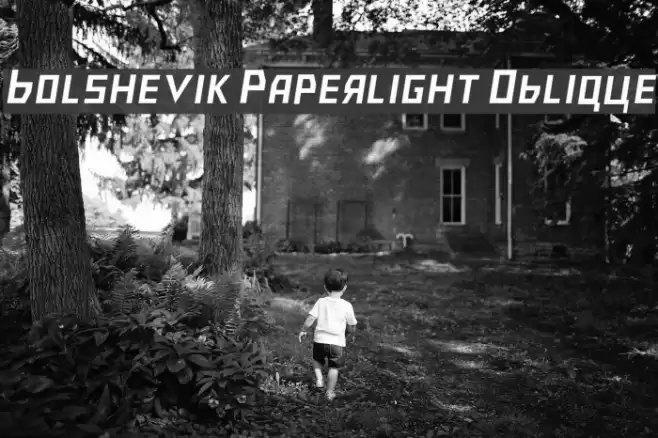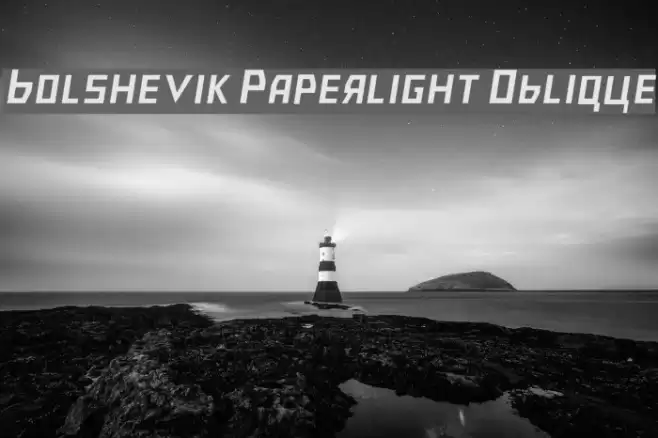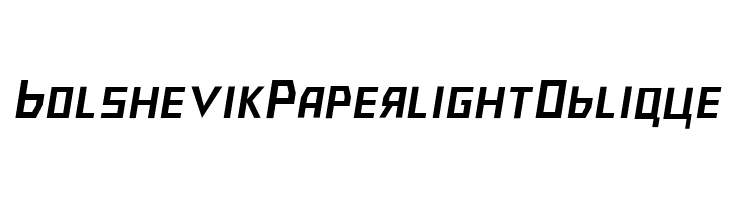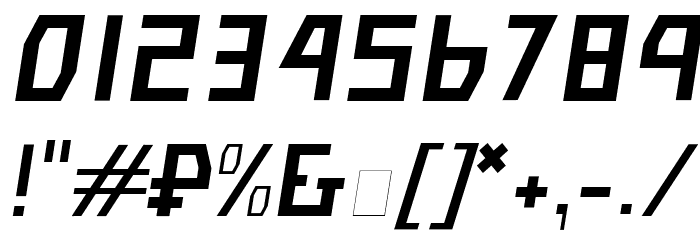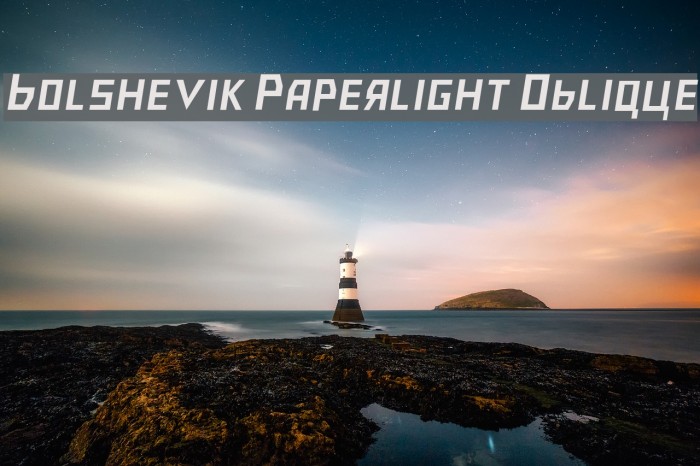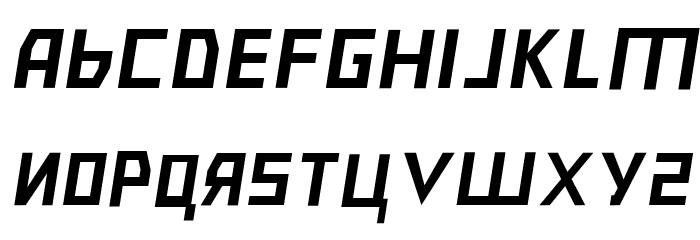
Bolshevik Paperlight Oblique Font
Bolshevik Paperlight Oblique Description
This font features a bold, geometric design with a distinct oblique slant, giving it a dynamic and modern appearance. The characters are constructed with sharp angles and clean lines, creating a sense of movement and energy. The uppercase and lowercase letters maintain a consistent style, with the uppercase being slightly more pronounced. The numerals are equally bold and angular, ensuring readability and impact. Special characters are designed to match the overall aesthetic, providing a cohesive look across all glyphs. This font's unique style makes it suitable for projects that require a strong visual presence.
A bold, geometric oblique font with sharp angles and a modern aesthetic from Uncategorized fonts.